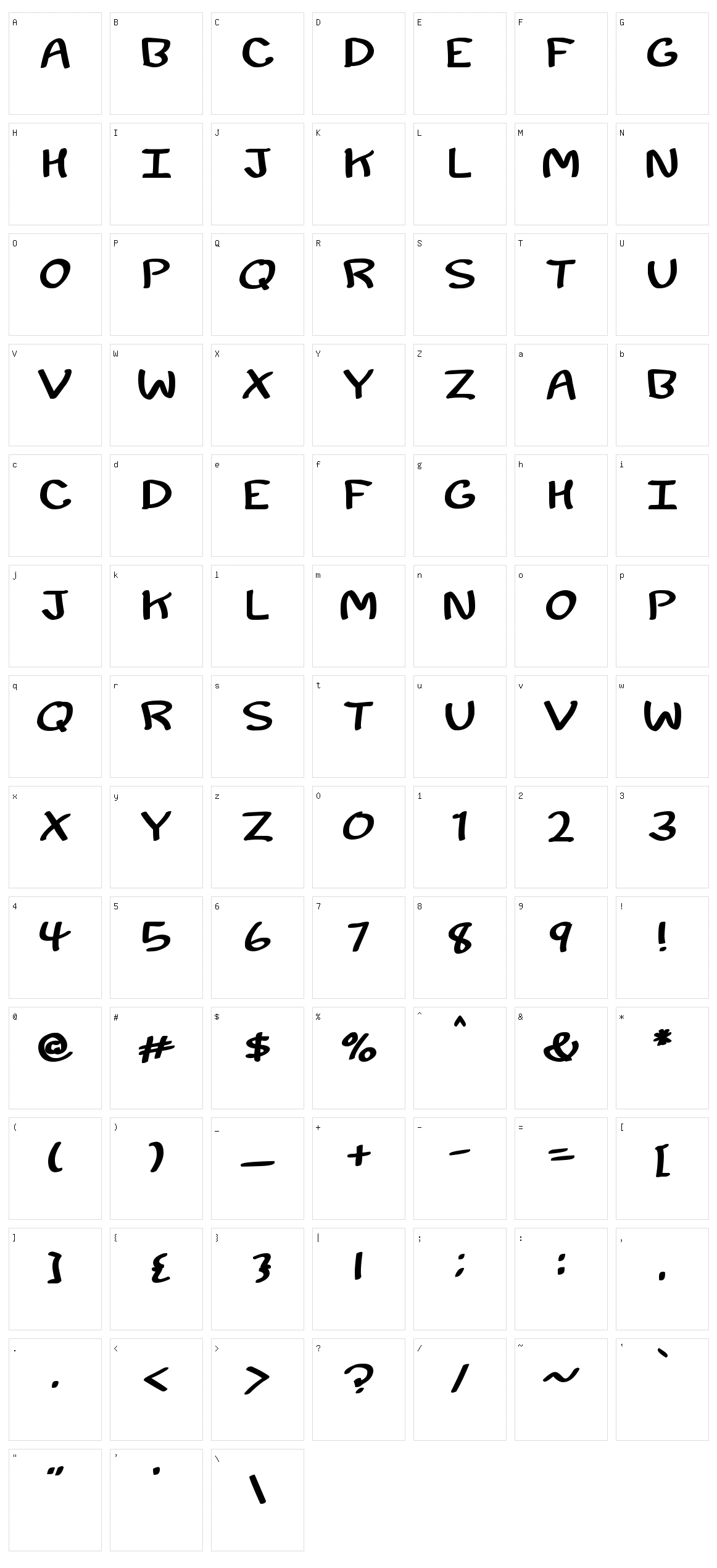
The free font Sunshine Smile is carefully designed by Joseph Dawson, showcasing a thoughtful balance of creativity and usability and falls under the Script font style. When you download the ZIP file, it contains only 363.47 KB of font files, making it lightweight and quick to download. Please review the license details below to understand permitted usage and distribution rights. If license information is not available, we recommend using this font for personal projects only or contacting the author directly for commercial usage permissions.